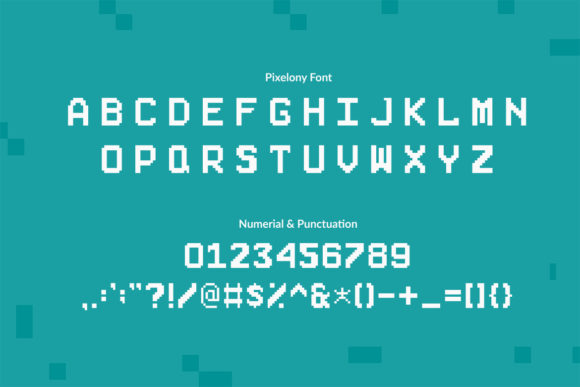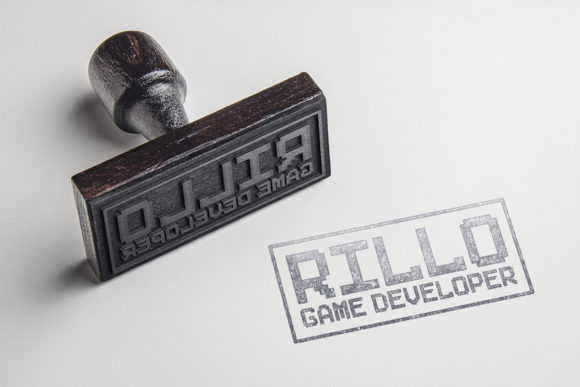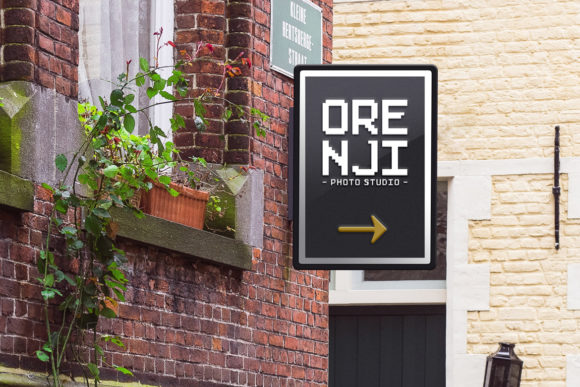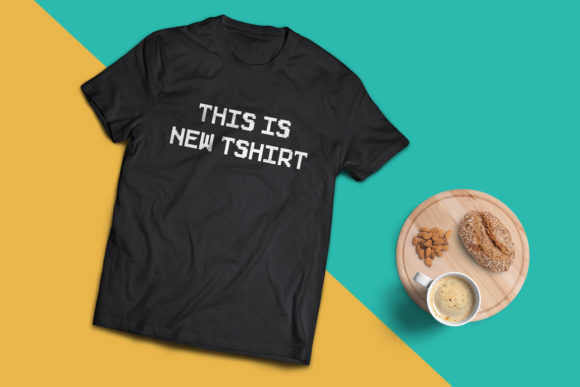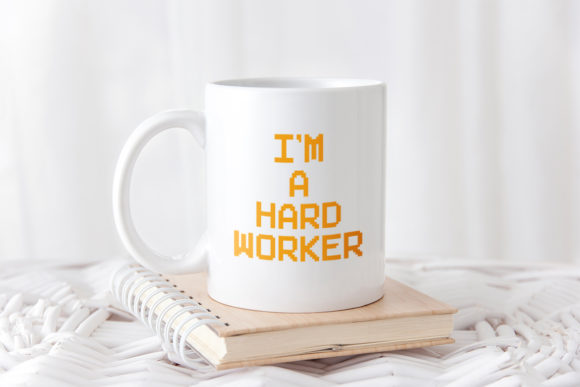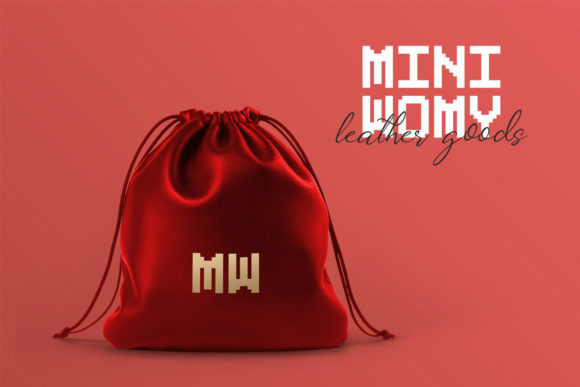
Introduction to Pixelony Font
The Pixelony is a pixel style font which comes in allcaps.
Each alphabet has same size (8×11 pixel), so it looks modern and minimalist .
Key Features of Pixelony Font